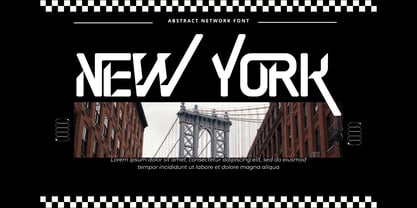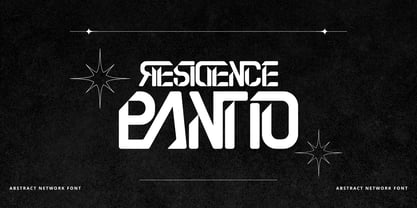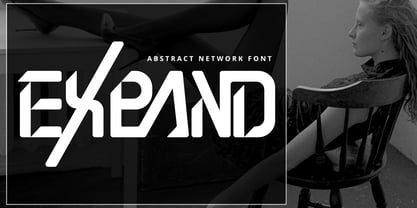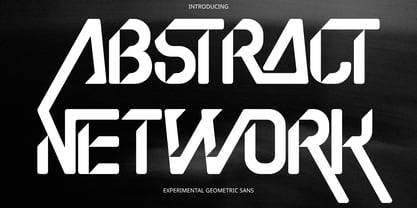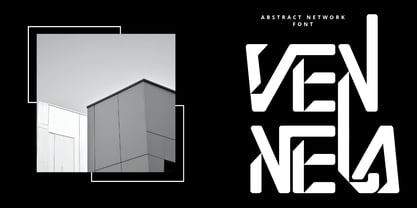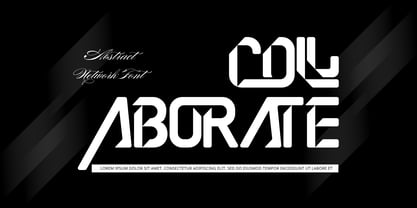
Abstract Network
von 177Studio
Die Schriftfamilie Abstract Network wurde von 177Studio entworfen und von 177Studio veröffentlicht. Abstract Network enthält 2 Stile und Familienpaketoptionen. Mehr über diese Familie
Abstract Network - Futuristic Font – Geometric Folded Ribbon & Origami Cybertech Display Font, a striking geometric techno display font inspired by origami paper folds, architectural ribbon structures, and high-tech cybernetics. Defined by its precise 45-degree angular bevels, stencil-style overlapping slashes, and sharp dimensional folds, this typeface turns standard headlines into complex, 3D ribbon logotypes.